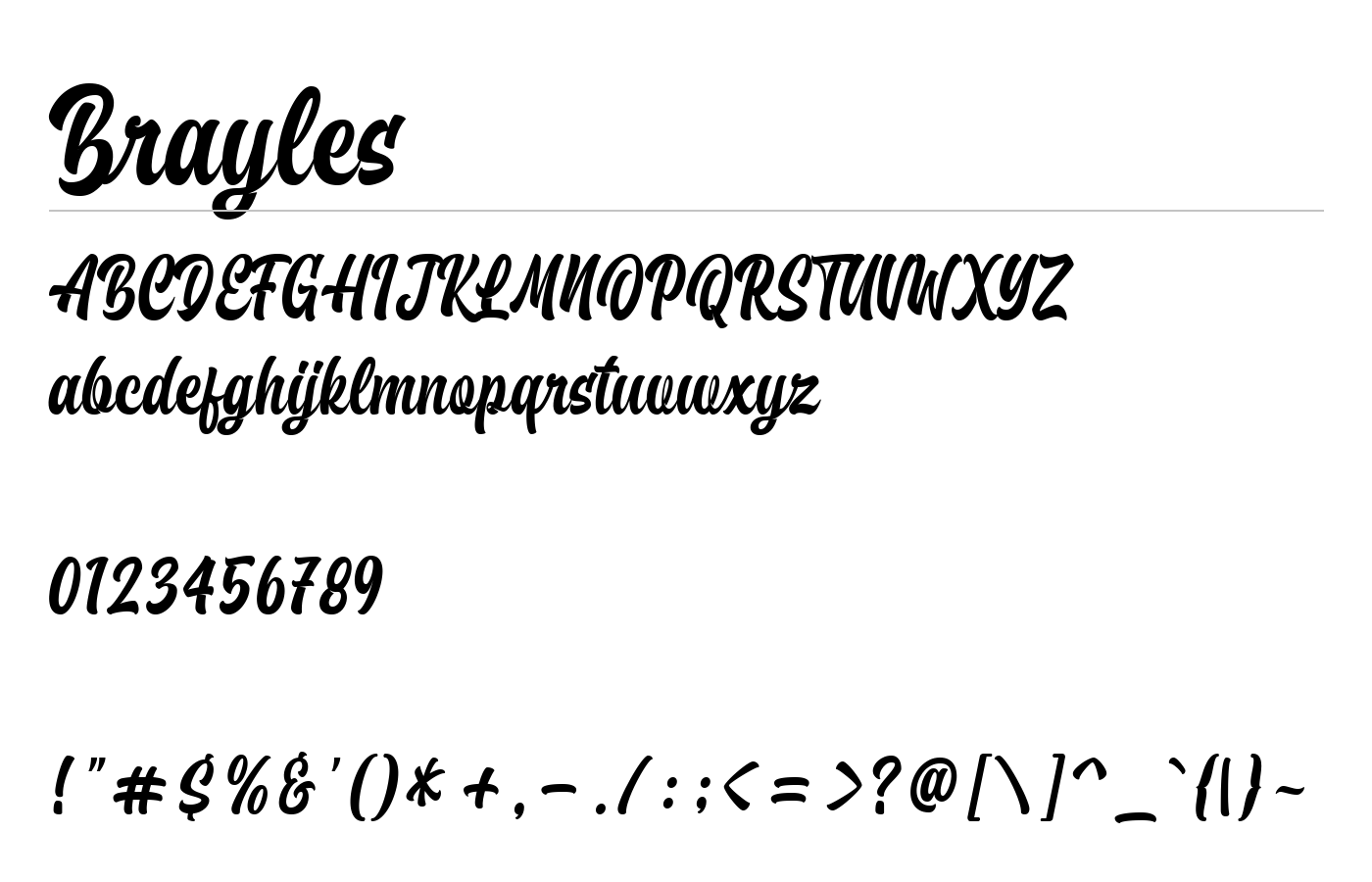
Brayles is a lively script font with a bold, brush-like weight that gives it a strong yet friendly personality. Its smooth, connected letterforms and moderate contrast create an inviting, handwritten feel perfect for branding, packaging, or headlines that need a personal and energetic touch. This font’s playful elegance makes it ideal for fashion, lifestyle, or creative projects seeking a modern but approachable style.
Brayles Font
About Brayles Font
| Font family | Brayles Font |